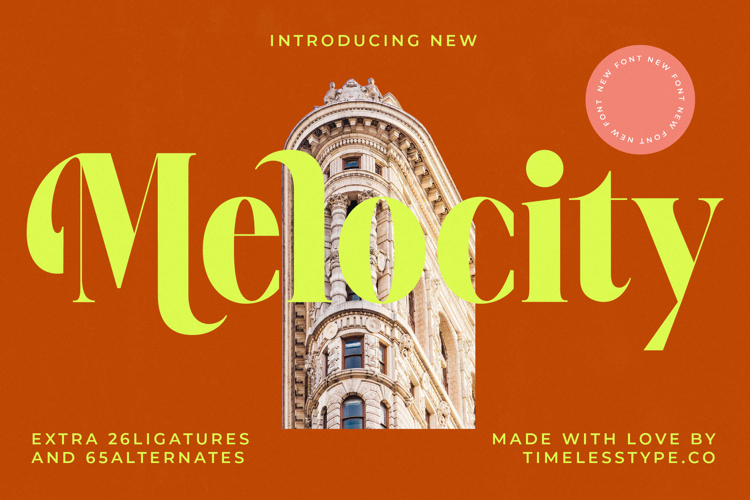
Melocity - Modern Bold Serif
Elevate your designs with the undeniable presence of Font Melocity - Modern Bold Serif Serif Display, a typeface meticulously crafted for impact and sophistication. This display serif commands attention with its bold, confident strokes and exquisitely refined details. Its high-contrast letterforms merge classic serif grandeur with a refreshingly contemporary aesthetic, ensuring your message is not just seen, but truly felt.
Unleash unparalleled creative flexibility with Font Melocity - Modern Bold Serif Serif Display, featuring an expansive suite of OpenType features including numerous ligatures and stylistic alternates. These thoughtful additions empower designers to craft truly unique headlines, logos, and branding elements. The fluid interplay of thick and thin strokes, combined with elegant serifs, offers a harmonious balance that is both expressive and incredibly legible.
With its extensive multilingual support, Font Melocity - Modern Bold Serif Serif Display adapts seamlessly across global markets, making it incredibly versatile for international projects. This comprehensive language coverage ensures your brand communications resonate worldwide, maintaining consistent professionalism and sophisticated appeal across all geographical boundaries. It’s a truly global asset for any designer aiming for a prestigious international presence.
Font Melocity - Modern Bold Serif Serif Display is perfectly suited for projects demanding a touch of luxury and prestige. It is ideal for high-end branding, elegant editorial layouts, premium product packaging, distinctive magazine titles, and impactful advertising campaigns. Choose Font Melocity - Modern Bold Serif Serif Display to impart an air of timeless sophistication and modern flair, ensuring your brand stands out with unmatched visual distinction.